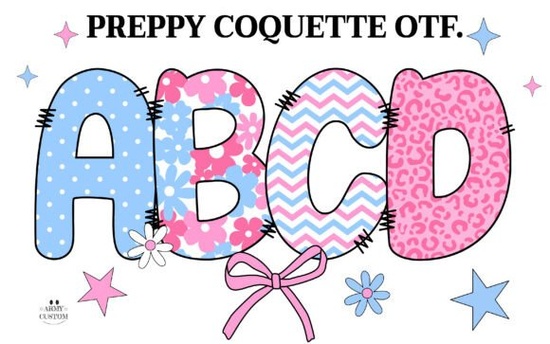
If you're working on a design that calls for vintage charm with a fresh, feminine twist, the Preppy Coquette Font might be exactly what you need. Blending retro American style with delicate floral details, this font brings a nostalgic yet polished look to everything from greeting cards to apparel designs.
What makes Preppy Coquette stand out is how it balances classic preppy aesthetics think crisp letterforms and structured curves with subtle botanical accents woven into the characters. It’s not just decorative; it’s functional nostalgia. Whether you’re designing back-to-school merch, summer picnic invites, or boutique packaging, this font adds personality without overwhelming your layout.
Who is this font best suited for?
This typeface works especially well for:
- Print-on-demand sellers creating mugs, tote bags, or T-shirts with a cottagecore or vintage collegiate vibe.
- Small business owners branding bakeries, florists, or stationery shops that want a friendly, timeless identity.
- Graphic designers looking for unique typography that still reads clearly at small sizes.
How does it compare to other retro-inspired fonts?
While many fonts lean into Americana through bold block letters or star-spangled motifs like those you’ll find in our American flag-themed font collection Preppy Coquette takes a softer approach. Instead of overt patriotism, it evokes the quiet confidence of 1950s campus style mixed with garden-party elegance.
Practical tips for using Preppy Coquette effectively
To get the most out of this font, consider these real-world usage tips:
- Pair it wisely. Because of its ornate details, pair it with a clean sans-serif (like Montserrat or Helvetica Neue) for body text or secondary headlines.
- Avoid tiny sizes. The floral embellishments can blur or disappear below 18pt, especially in print.
- Don’t overuse it. One headline or logo per design is usually enough its personality shines brightest when used sparingly.
Also, remember that while the color version looks stunning in digital mockups or high-res prints, it’s not suitable for embroidery digitizing or single-layer cutting. Always match your font choice to your output method.
With its blend of retro structure and floral whimsy, Preppy Coquette offers a distinctive voice for creators who value both heritage and charm. Just make sure your tools and project goals align with its technical requirements and you’ll have a versatile asset for seasons to come.